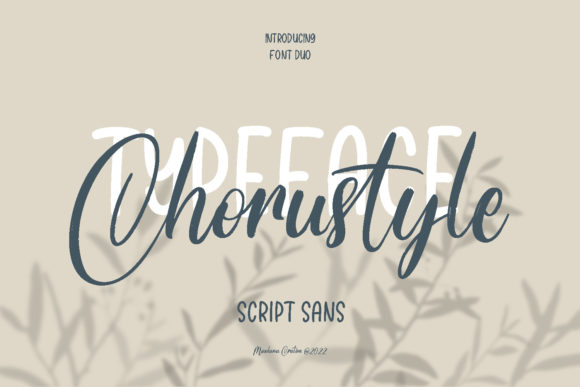
Introducing Chorustyle Duo Font: The Ultimate Creative Expression for Your Neon Signs
In a world where creativity and expression reign supreme, Chorustyle Duo Font emerges as a radiant beacon of inspiration, igniting your imagination and empowering you to craft neon signs that captivate and allure. This exquisite duo font, meticulously crafted by the visionary Maulana Creative, seamlessly blends the enchanting allure of a script font with the bold confidence of a sans serif, granting you unparalleled versatility to materialize your artistic visions.
Immerse yourself in a symphony of visual delight as Chorustyle Duo Font paints your words in a mesmerizing dance of light and shadow. The script font, with its graceful curves and sweeping strokes, exudes an aura of effortless elegance, inviting viewers to delve into the depths of your message. Its sans serif counterpart, adorned with clean lines and unwavering strength, adds a touch of modern sophistication, ensuring your neon signs command attention and leave an indelible mark on the minds of all who behold them.
Whether you seek to illuminate the bustling streets of a vibrant metropolis or cast a warm glow upon a cozy corner bistro, Chorustyle Duo Font stands ready to fulfill your creative aspirations. Its inherent duality grants you the freedom to weave together harmony and contrast, crafting neon signs that transcend the boundaries of ordinary and ascend into the realm of extraordinary.
Experience the transformative power of Chorustyle Duo Font and witness as your words burst forth with unprecedented vibrancy and allure. Let your imagination soar as you explore the boundless possibilities this remarkable font duo presents. From captivating storefronts that beckon customers to intimate wedding marquees that celebrate the union of two souls, Chorustyle Duo Font empowers you to create neon signs that ignite emotions and leave an enduring legacy.
Embrace the creative liberation that Chorustyle Duo Font offers, and embark on a journey where your artistic vision knows no limits. Adorn your neon signs with Chorustyle Duo Font, and let them shine as radiant testaments to your creativity and passion.